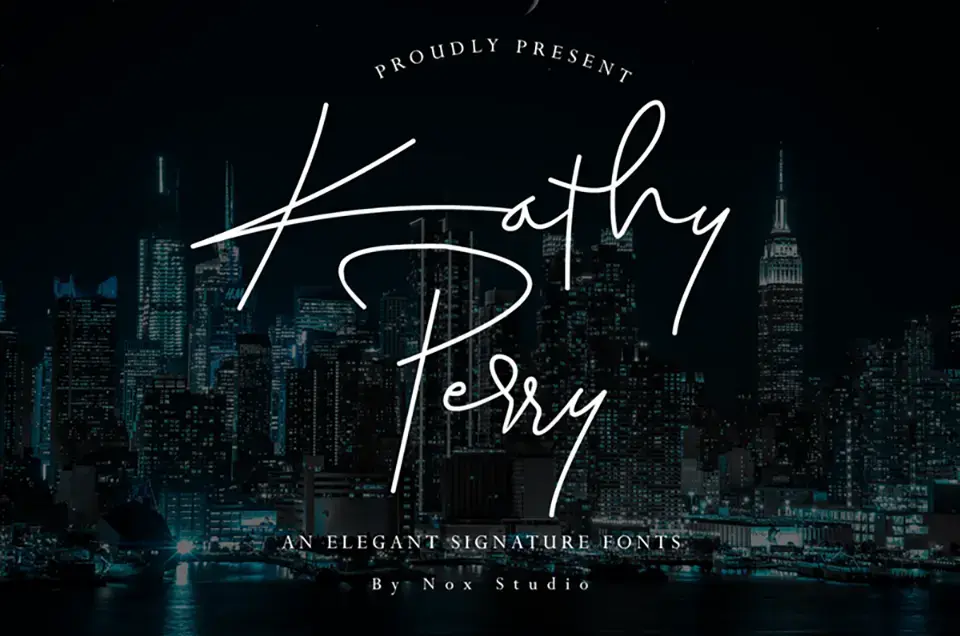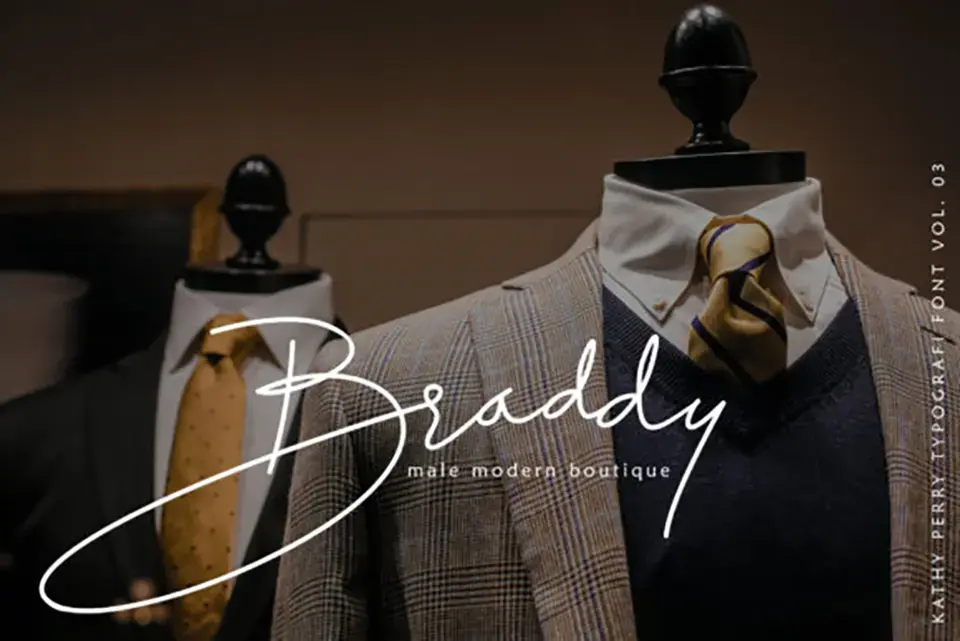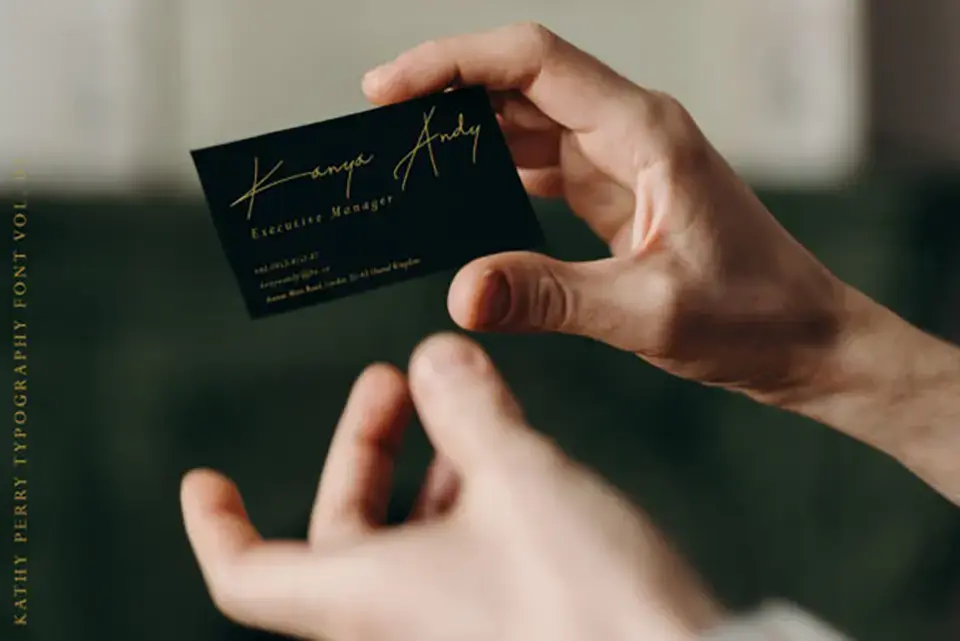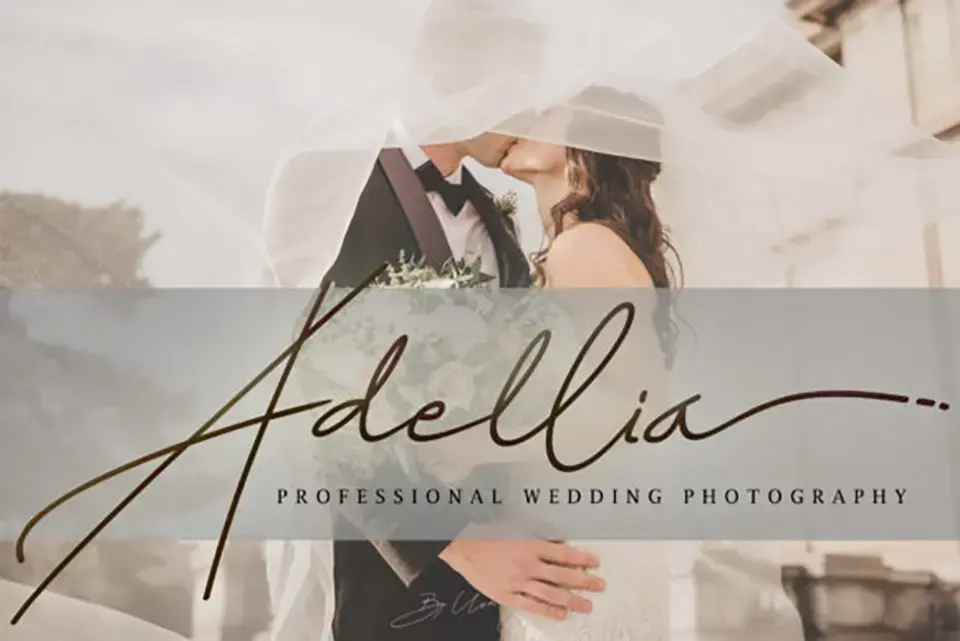
Kathy Perry Font
Kathy Perry is a gracefully flowing handwritten script font that captures the elegance of natural signature writing with sophisticated calligraphic touches. Featuring 180 carefully crafted glyphs, this display typeface excels in creating refined titles, wedding invitations, and logo designs. The font's connected letterforms and smooth curves evoke a personal, romantic aesthetic perfect for luxury branding, greeting cards, and formal event stationery. Its balanced italic style delivers visual sophistication ideal for designers seeking an elegant, handwritten alternative to standard display fonts.